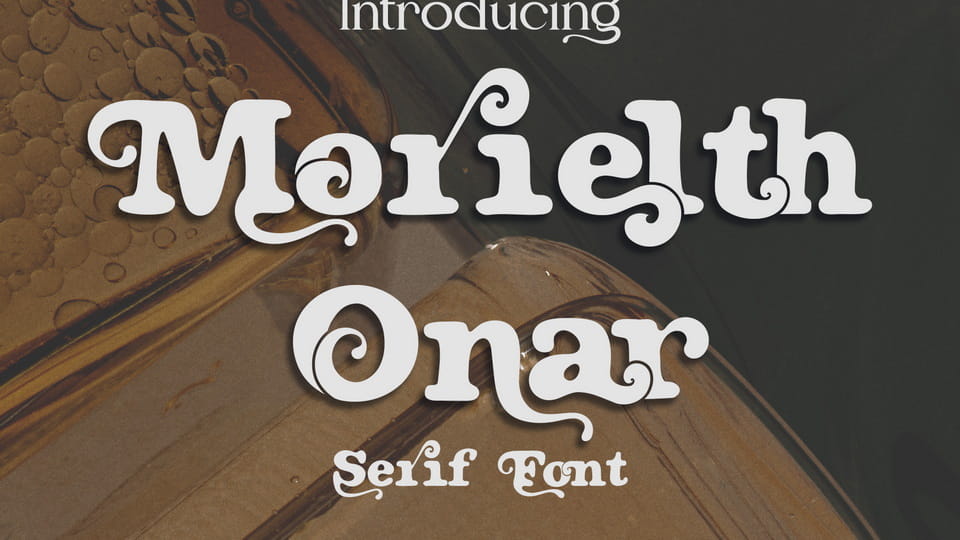
Download Morielth Onar font, a bold and artistic serif typeface that blends vintage charm with whimsical swirls. Each letter is designed with playful curves and elegant details.